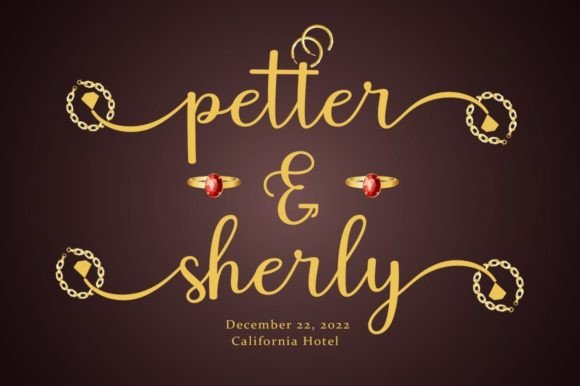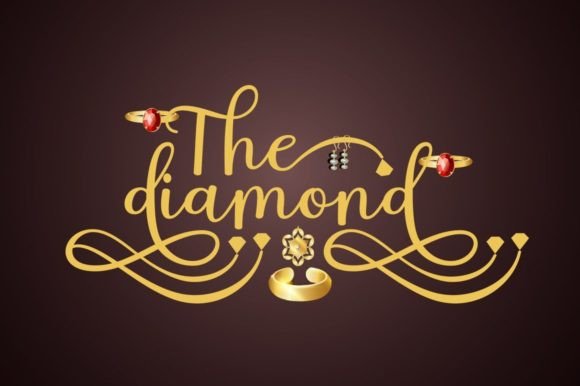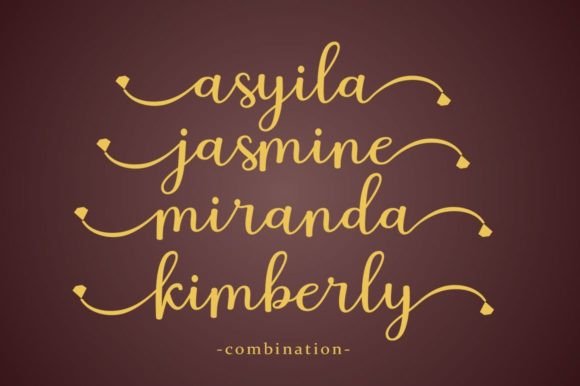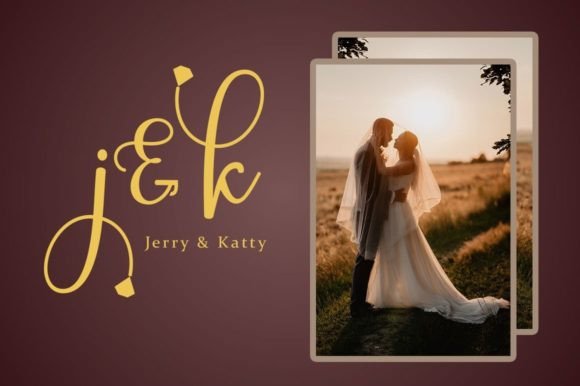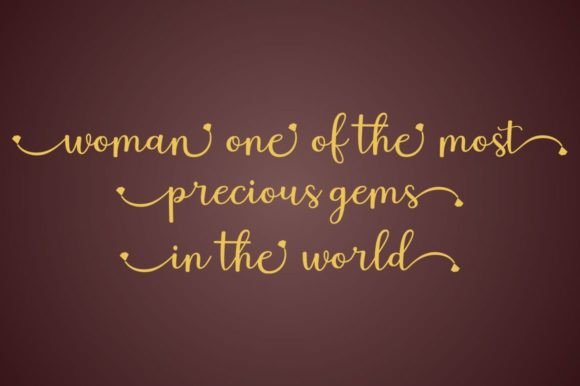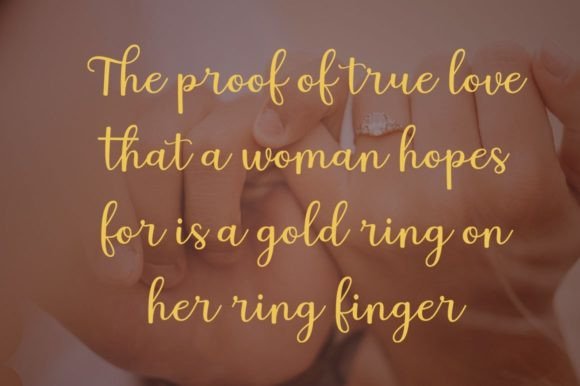
Introduction to Hey Berli Font
Imagine yourself in the midst of a creative project, surrounded by endless possibilities and design ideas. You’re brainstorming the perfect font to elevate your branding, and suddenly, you stumble upon it – the Hey Berli Font. Its unique script style and sophisticated accents will undoubtedly capture your audience’s attention and leave a lasting impression.
As a designer, you’re always on the lookout for high-quality design resources that can take your work to the next level. The Hey Berli Font is an excellent addition to your toolkit, offering a free download and PUA encoding for easy access to its extensive glyphs and swashes. This means you can create custom labels, logos, and wedding invites with a transparent background that exudes elegance and sophistication.
With the Hey Berli Font, you’ll be able to bring your creative vision to life with precision and flair. Its versatility makes it an ideal choice for a wide range of design projects, from branding and marketing materials to wedding stationery and more.
Key Features of Hey Berli Font
- Transparent Background: The Hey Berli Font offers a unique transparent background design, making it an ideal choice for creative projects that require a subtle look.
- High-Quality Design: Hey Berli Font features a high-quality design that is perfect for use in a variety of creative projects, including logos, branding, and advertising materials.
- Unique Characteristics: The Hey Berli Font features a unique blend of modern and vintage elements, making it an excellent choice for designers looking to add a touch of elegance and sophistication to their creative projects.
Honest Review: Hey Berli Font
As a designer, I’m always on the lookout for high-quality design resources to elevate my creative projects. I recently came across the Hey Berli Font, and I was excited to put it to the test.
- ✨ The font’s modern and sleek design makes it perfect for creative projects that require a touch of sophistication.
- ⚠️ The font may not be suitable for projects that require a bold, dramatic font face.
- ⚠️ Some users may find the font’s modern design to be too trendy, which may limit its long-term usability.
Overall, I’m impressed with the Hey Berli Font. It’s a solid addition to any designer’s toolkit, and its free download option makes it an attractive choice for creative projects. While it may have some limitations, the font’s high quality and versatility make it a great resource to have on hand.
Hey Berli Font
Designing with Hey Berli Font
Tips for Getting the Most Out of Hey Berli Font
To get the most out of the Hey Berli Font, consider the following tips: use it on a transparent background to create a subtle and elegant design, experiment with different font sizes and colors to achieve a unique look, and pair it with other design elements to create a cohesive design.